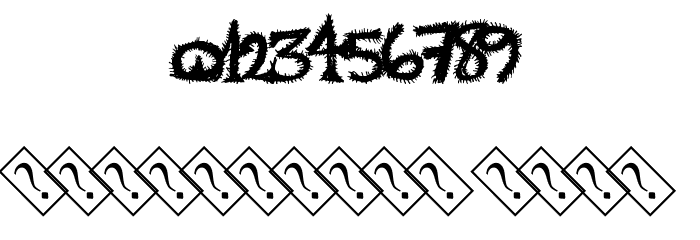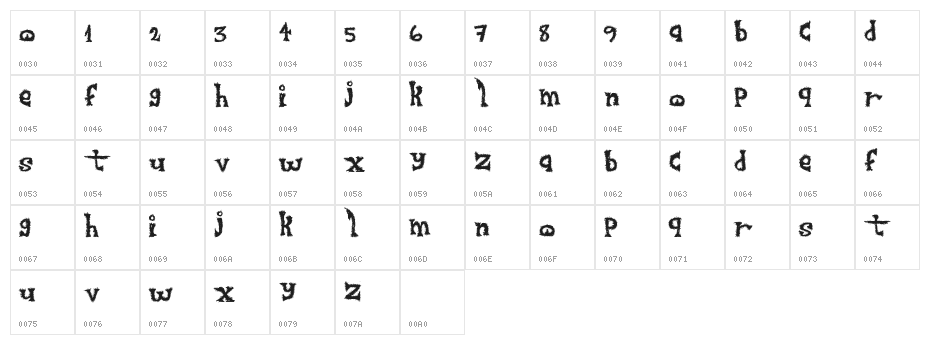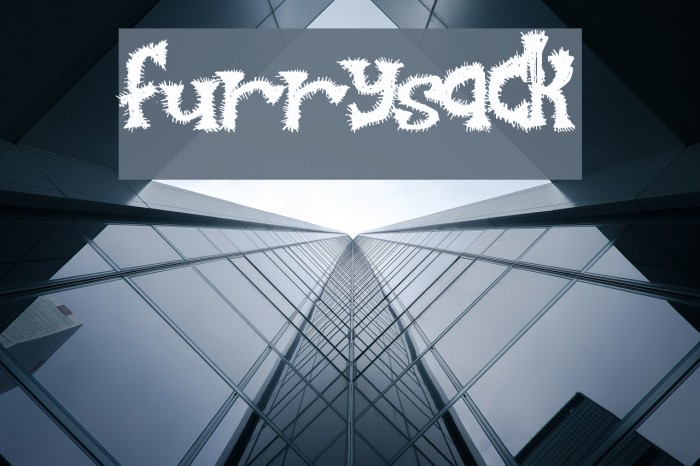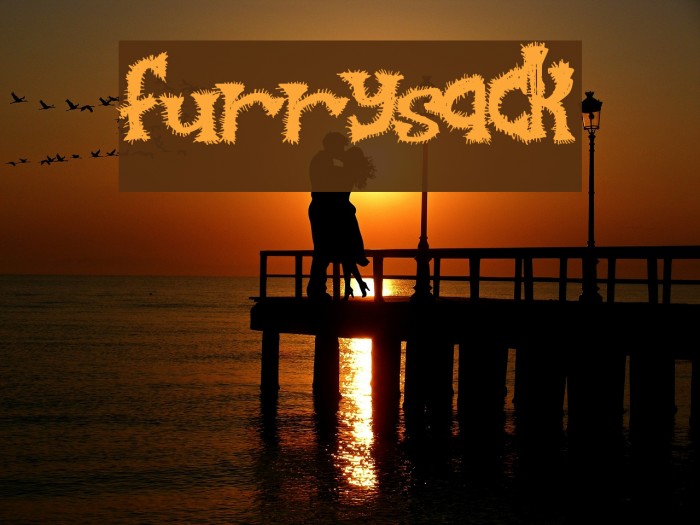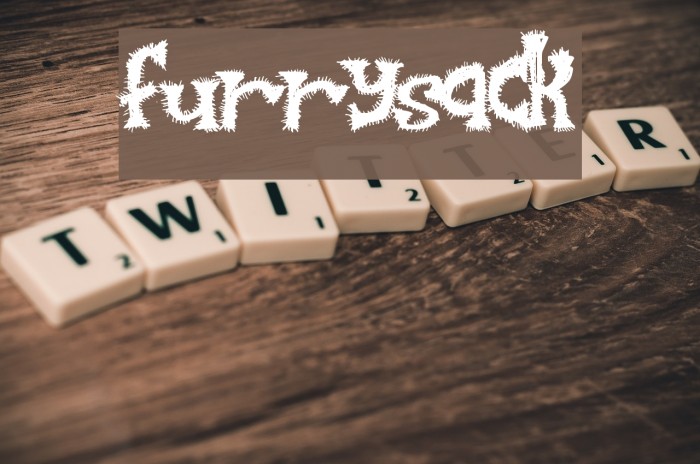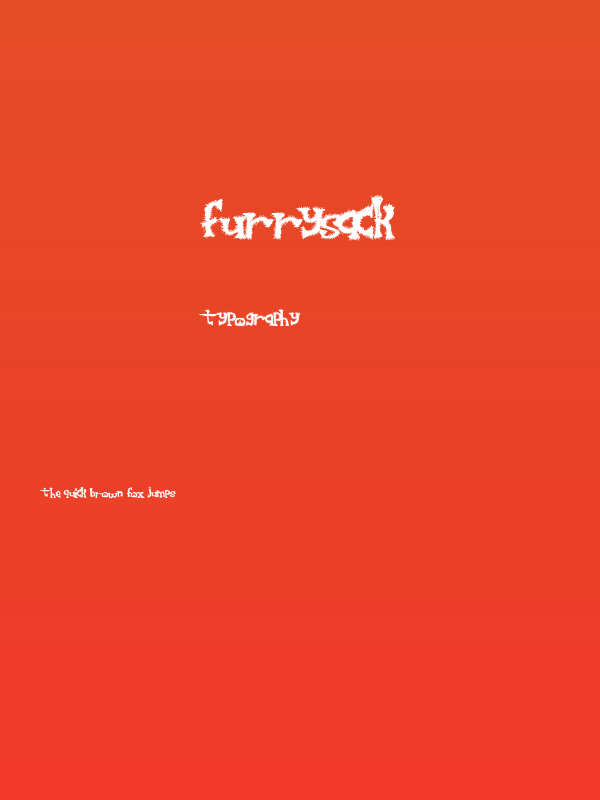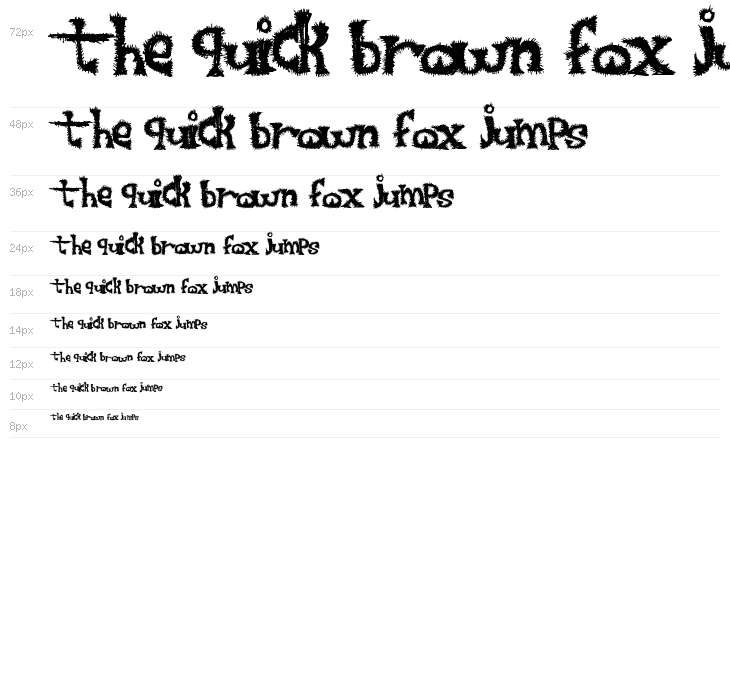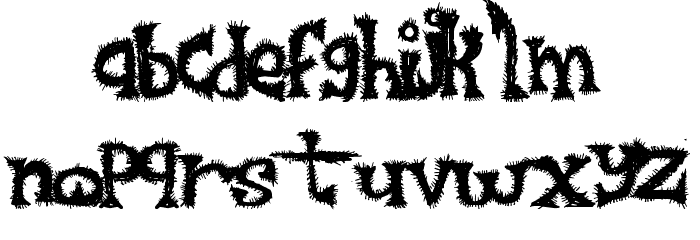
FurrySack Font
FurrySack Description
This font features a unique and playful design with a fuzzy, textured appearance that resembles fur or hair. Each character is crafted with irregular edges, giving it a whimsical and dynamic look. The letters maintain a consistent height, but the irregular outlines create a sense of movement and energy. This font is particularly eye-catching and would stand out in any design project. The numbers and special characters follow the same furry theme, ensuring a cohesive look across all text elements.
| Proposed Projects | Ideal for children's book covers, playful branding, Halloween-themed designs, or any project requiring a whimsical and eye-catching typeface. |